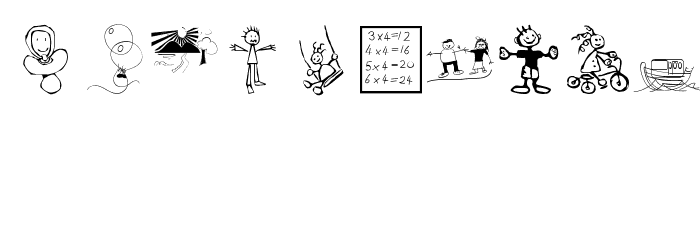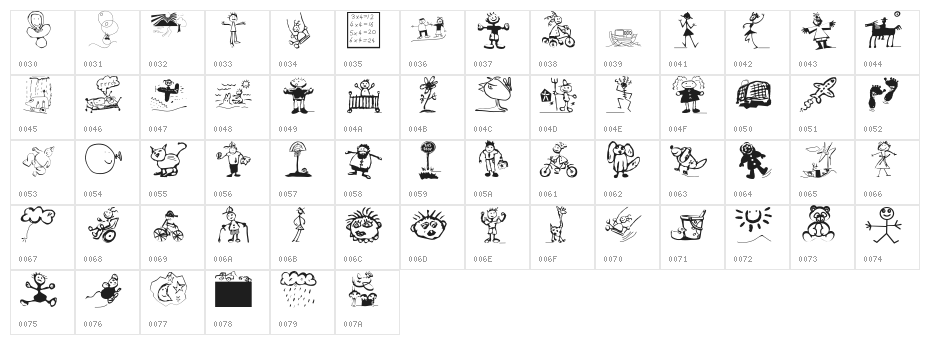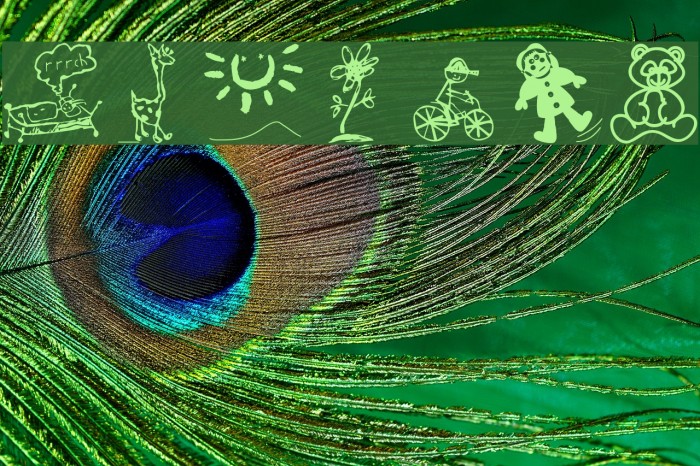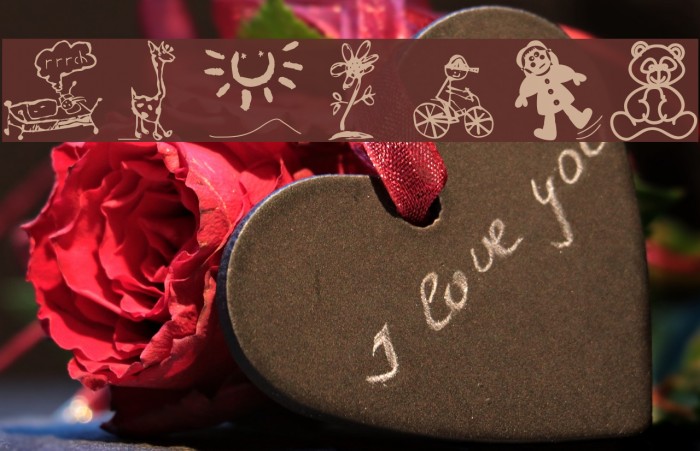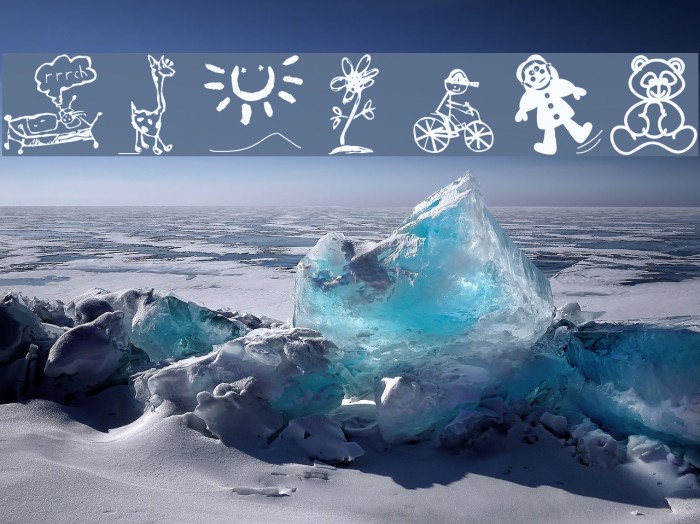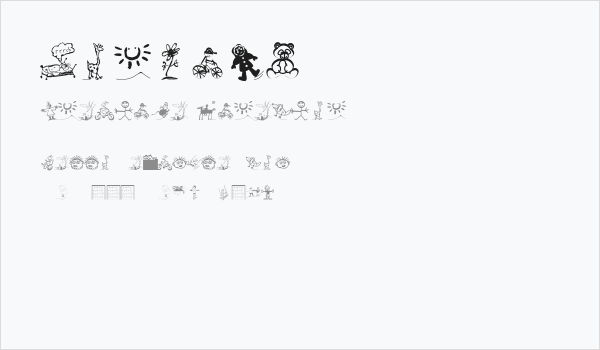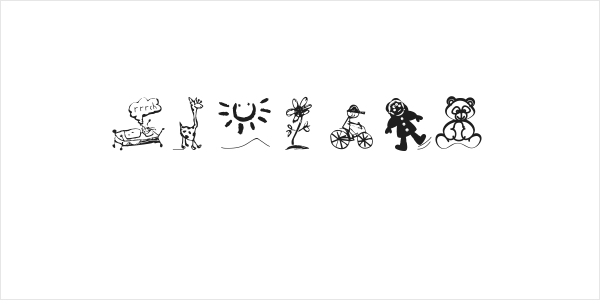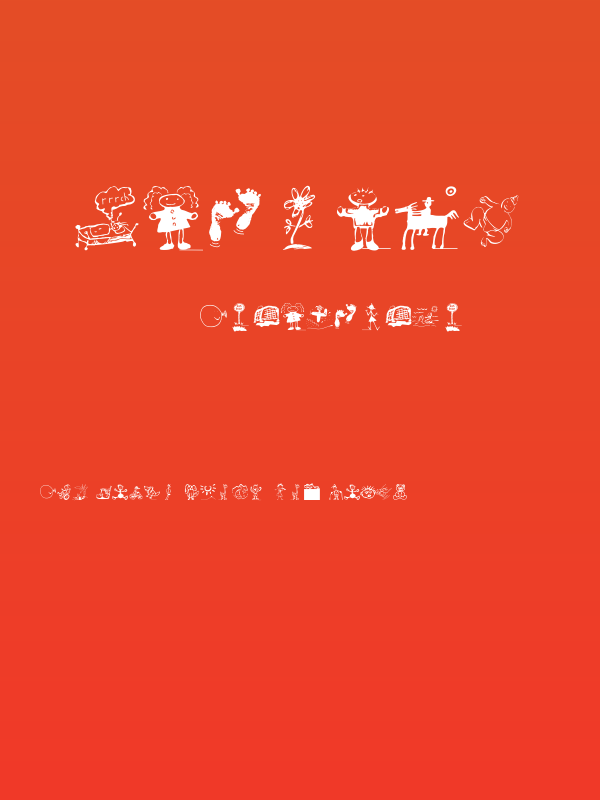
ForKids Font
ForKids Description
This is not a valid font. The image contains a series of playful, childlike illustrations depicting various activities and characters. These drawings are whimsical and cartoonish, featuring stick figures and simple shapes that convey a sense of fun and creativity. The style is reminiscent of children's doodles, with a focus on imagination and storytelling rather than typography.
Fonts by Manfred Klein - manfred-klein.ina-mar.com
| Overall Style | Whimsical, Childlike |
| Use Case | Illustrations, Children's media |
| Proposed Projects | These illustrations could be used in children's books, educational materials, or playful design projects. |